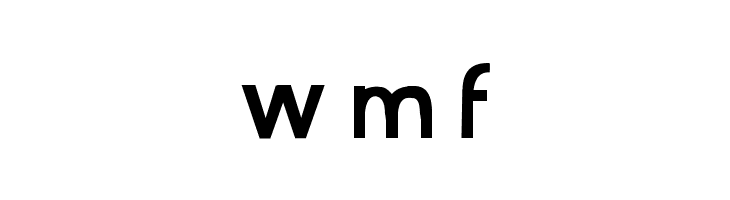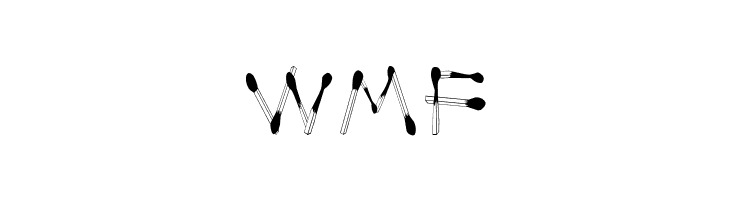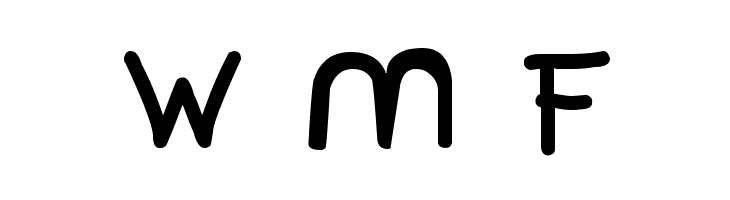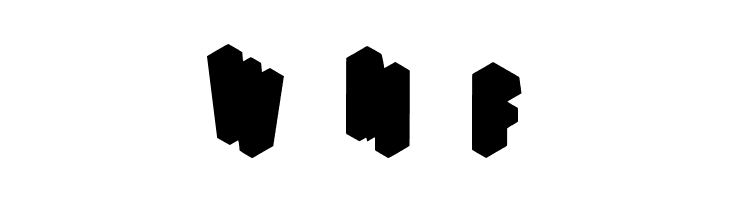
An ornate gothic font with elaborate swirls and bold blackletter elements.
A bold, decorative font with intricate and artistic letterforms.
A whimsical, hand-drawn font with playful and dynamic letterforms.
A bold, distressed font with a vintage, textured appearance.
A playful, handwritten font with a casual and informal style.
A playful, casual handwritten font with irregular strokes and a personal touch.
A casual, handwritten font with a playful and dynamic style.
A playful, hand-drawn font with bold strokes and whimsical curves.
A bold, handwritten font with a casual and energetic style.
A bold, expressive handwritten font with fluid, dynamic strokes.
A playful, bold script font with an outlined, interconnected design.
A whimsical, handwritten font with tall, narrow characters and a light, airy appearance.
A textured, pencil-shaded font with a hand-drawn, artistic style.
A lively and dynamic script font with elegant, flowing connections.
A whimsical, curly serif font with playful swirls and loops.
A cartoonish, face-based decorative font with bold, hand-drawn lines.
Bold, geometric sans-serif with high contrast and clear legibility.
A playful, modern font with rounded edges and consistent stroke width.
A playful, matchstick-themed decorative font ideal for creative projects.
A bold, three-dimensional font with a modern, geometric style.
A playful, handwritten font with rounded, uniform strokes.
A bold, medieval-inspired font with decorative swashes and sharp serifs.
A sleek, elongated font with a modern, minimalistic style.
A casual, handwritten font with smooth, fluid strokes and a playful appearance.